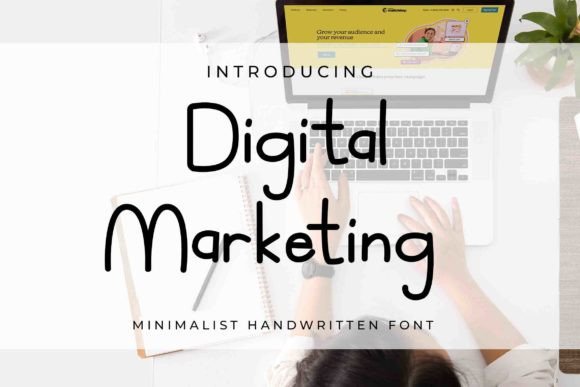
Digital Marketing Font: Adding a Stylish and Cheerful Touch to Your Crafts
When it comes to digital marketing, the visual elements of your content play a crucial role in capturing the attention of your audience. One often overlooked yet vital aspect of visual content is the font used in your marketing materials. A font can significantly influence how your message is perceived, and choosing the right one can elevate your brand’s aesthetic and overall appeal. In this article, we’ll explore the “Digital Marketing Font,” a simple, childish handwritten font that’s ideal for adding a stylish and cheerful touch to your crafts, including greeting cards, social media posts, and much more.
What is Digital Marketing Font?
Digital Marketing Font is a type of font designed to mimic the look and feel of handwritten text. It’s characterized by its simplicity and childlike charm, making it perfect for brands looking to convey a friendly and approachable image. This font is versatile and can be used across various digital platforms, from social media graphics and blog posts to email newsletters and website content.
The Benefits of Using Digital Marketing Font
There are several benefits to using the Digital Marketing Font in your marketing materials:
- Uniqueness: In a digital landscape filled with standard fonts, using a handwritten font like Digital Marketing Font can help your brand stand out.
- Approachability: The childish and cheerful nature of this font can make your brand appear more approachable and friendly.
- Versatility: Digital Marketing Font can be used in a variety of contexts, from formal to informal communications.
- Engagement: The visual appeal of this font can enhance engagement by making your content more enjoyable to read.
Using Digital Marketing Font in Different Contexts
One of the advantages of Digital Marketing Font is its versatility. Here are some ways you can use this font in different contexts:
Greeting Cards
Whether you’re creating digital greeting cards for holidays, birthdays, or special occasions, Digital Marketing Font can add a personal touch that makes the card more heartfelt and engaging.
Social Media Posts
Social media is all about standing out in a crowded feed. Using Digital Marketing Font in your social media graphics can make your posts more eye-catching and inviting.
Email Newsletters
Email newsletters are a great way to keep your audience engaged. Incorporating Digital Marketing Font into your newsletter design can make your content more enjoyable to read and help reinforce your brand’s personality.
Website Content
For website content, you can use Digital Marketing Font in headings, subheadings, or even in the body text to add a touch of personality to your website.
Tips for Effectively Using Digital Marketing Font
While Digital Marketing Font can add a lot of charm to your digital content, it’s essential to use it effectively to maximize its impact. Here are some tips:
- Use it Sparingly: While the font is cheerful and engaging, using it for large blocks of text can be overwhelming. Use it for headings, titles, or key messages.
- Pair it with Other Fonts: Consider pairing Digital Marketing Font with more straightforward fonts for body text to create visual contrast and hierarchy.
- Consider Readability: Ensure that the font is readable, especially when used in smaller sizes or on mobile devices.
- Match it with Your Brand Personality: Make sure that the use of this font aligns with your brand’s personality and message.
How to Choose the Right Font for Your Digital Marketing
Choosing the right font for your digital marketing efforts involves considering several factors:
- Brand Identity: The font should reflect your brand’s personality and values.
- Audience: Consider the preferences and expectations of your target audience.
- Context: Different contexts may call for different fonts. For example, a formal email might require a more traditional font, while a social media post could be more playful.
- Legibility: Ensure that the font is easy to read across different devices and screen sizes.
Digital Marketing Font offers a unique and engaging way to enhance your digital marketing materials. Its simple, childish, and handwritten style can add a cheerful touch to your crafts, from greeting cards and social media posts to email newsletters and website content. By using this font effectively and thoughtfully, you can create visually appealing content that resonates with your audience and strengthens your brand’s identity.